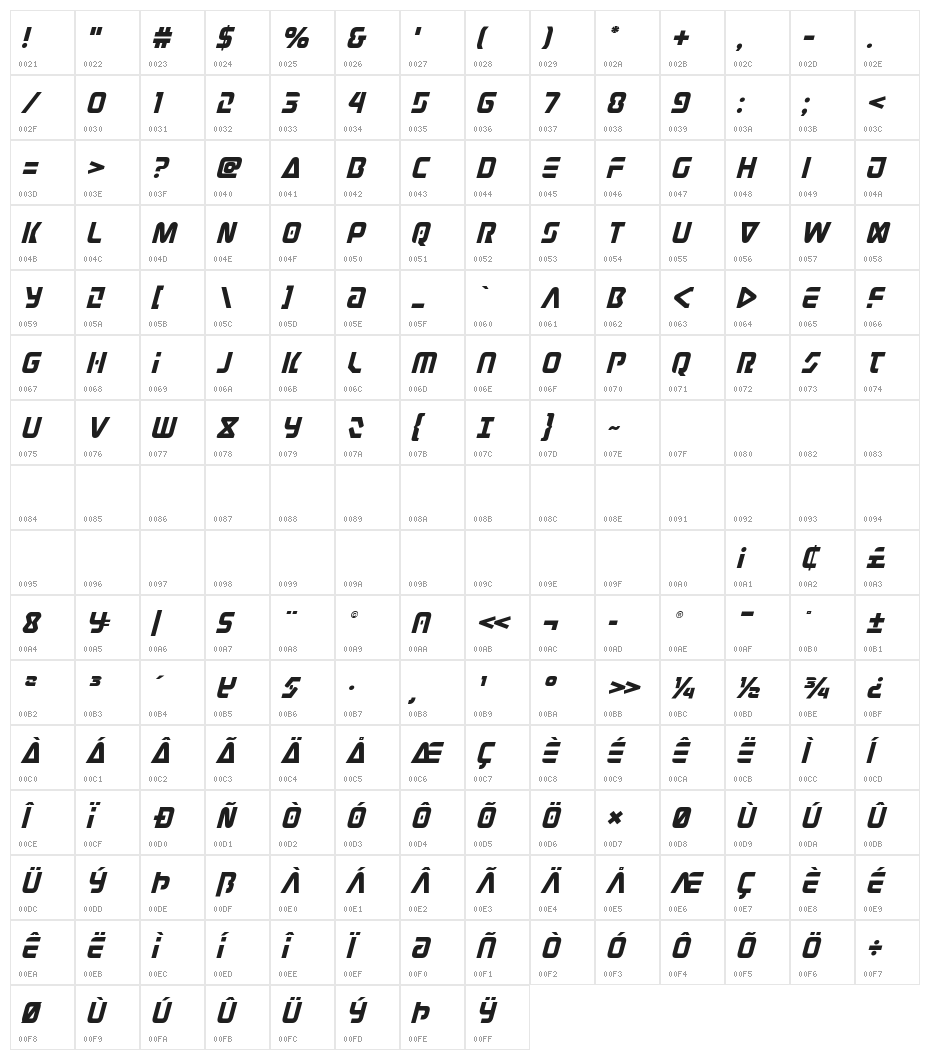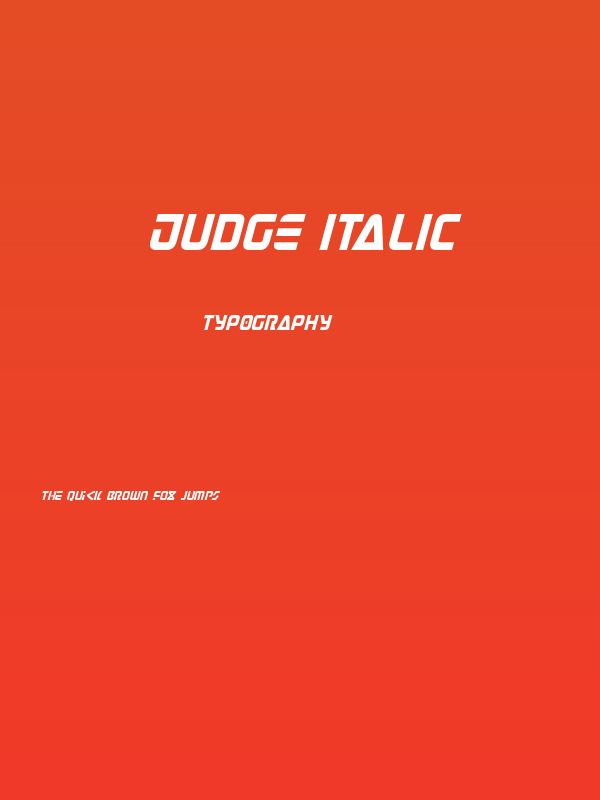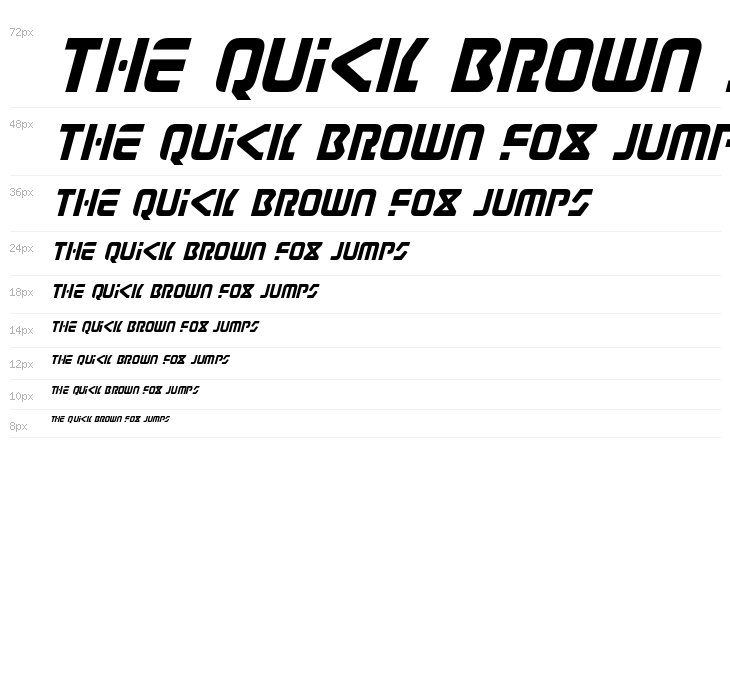
Judge Italic Font
Judge Italic Description
This font features a bold, italicized style with a futuristic and dynamic appearance. The characters are designed with sharp angles and a forward-leaning posture, giving a sense of motion and speed. The uppercase and lowercase letters maintain a consistent geometric structure, while the numbers and special characters complement the overall design. The font's unique style makes it stand out, with each character having a distinct, edgy look. The spacing between characters is tight, enhancing the compact and cohesive feel of the text.
Overall StyleFuturistic
Proposed ProjectsIdeal for technology branding, sports team logos, video game titles, and sci-fi themed projects.